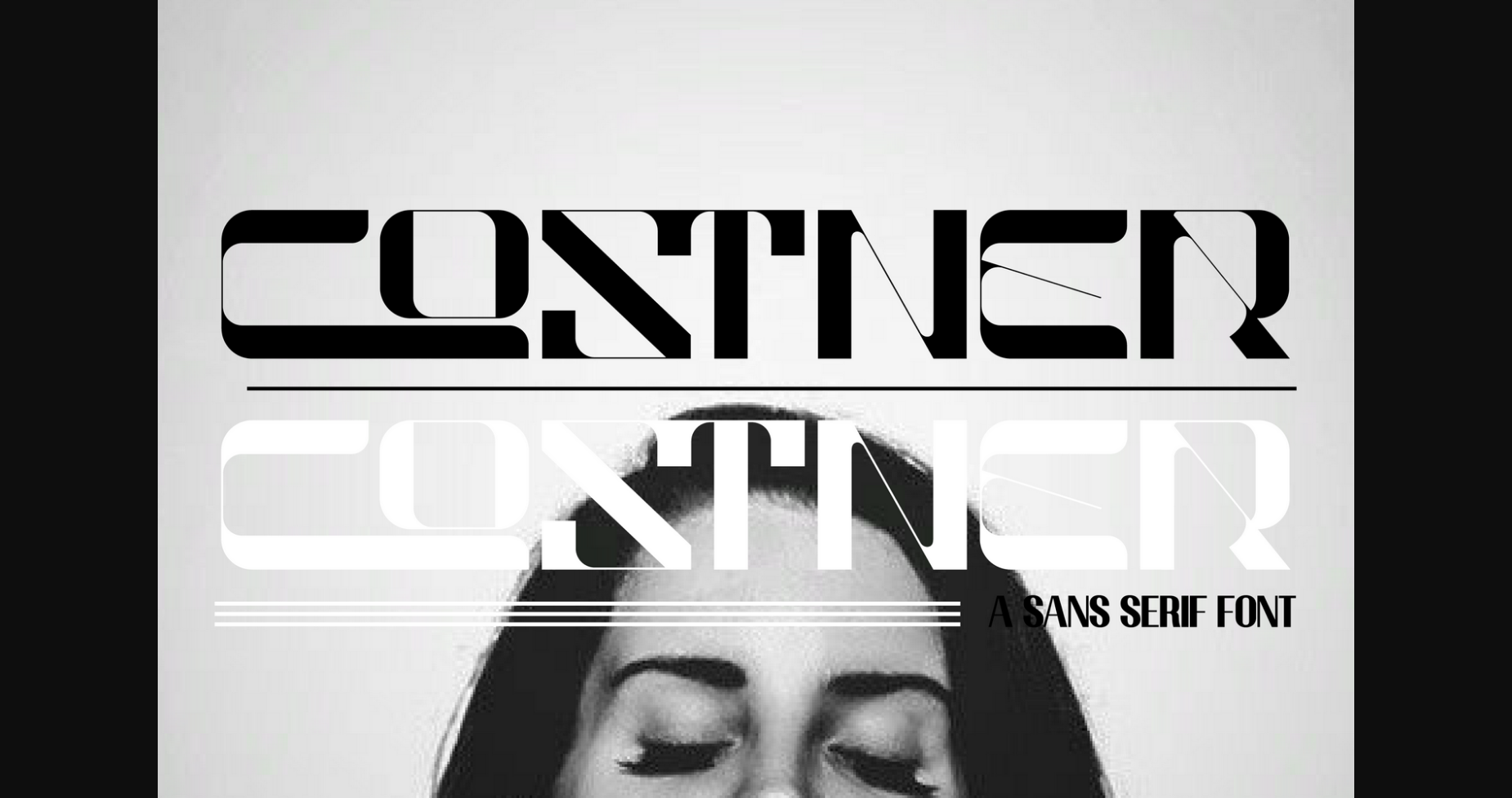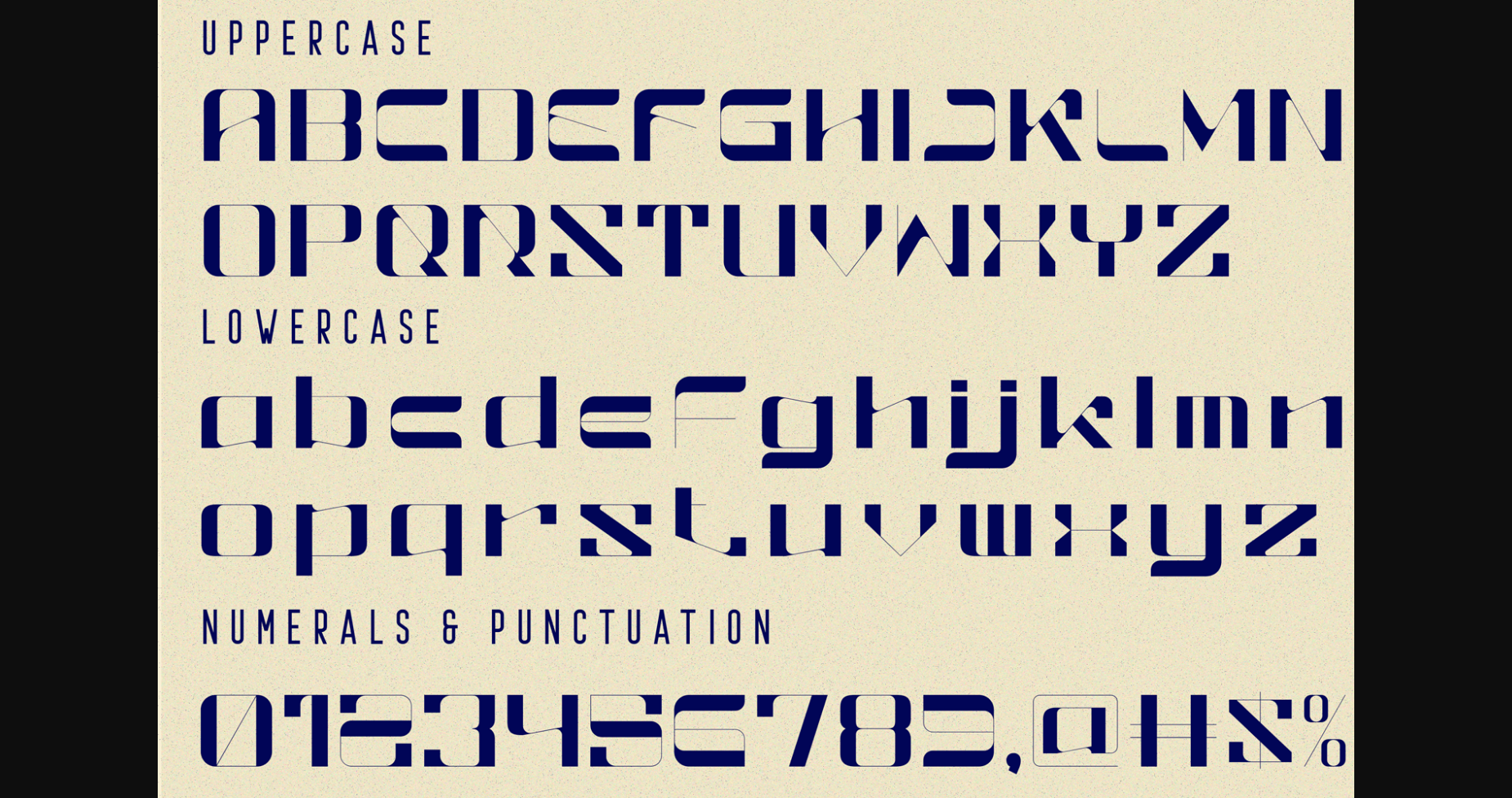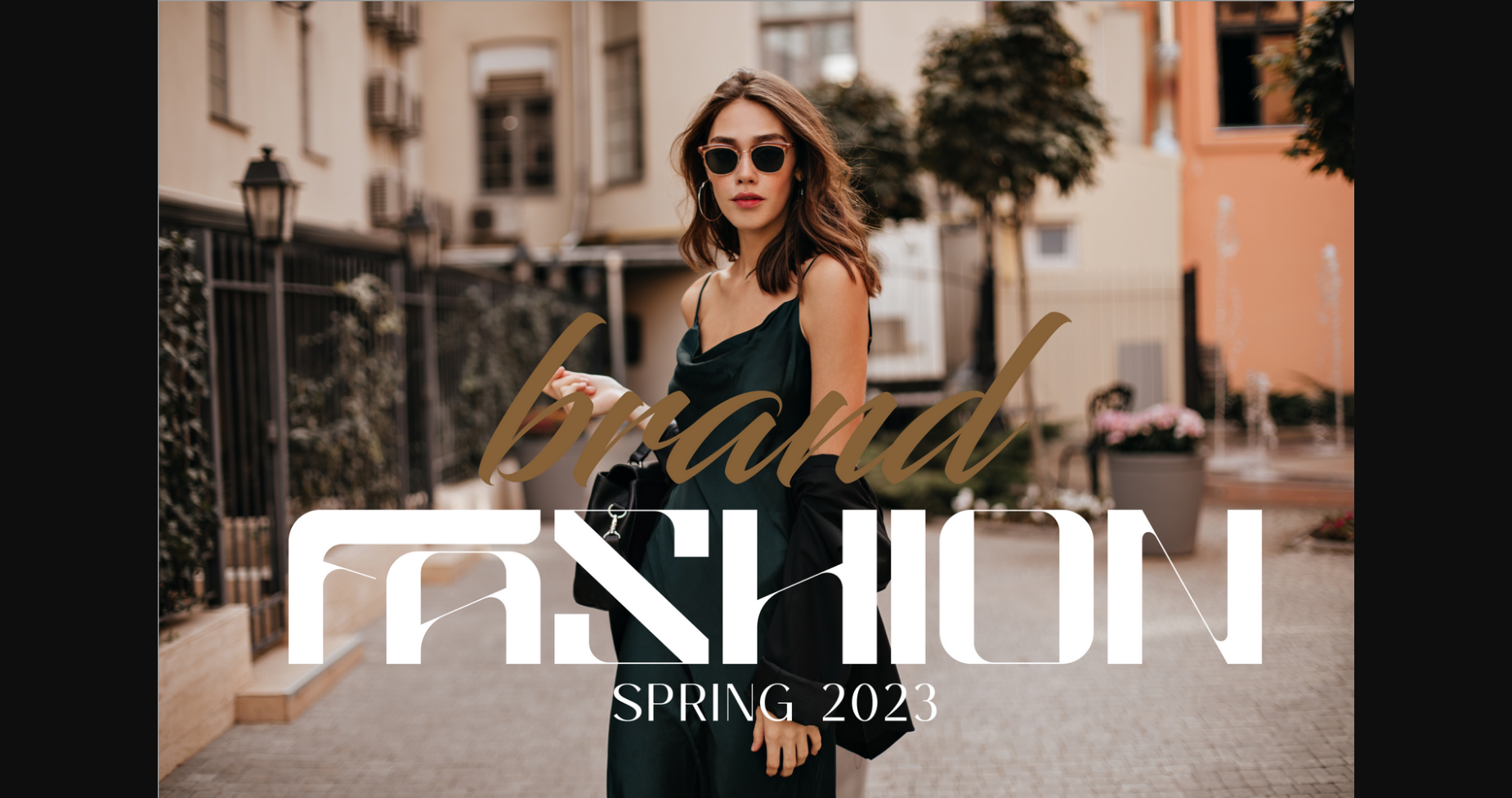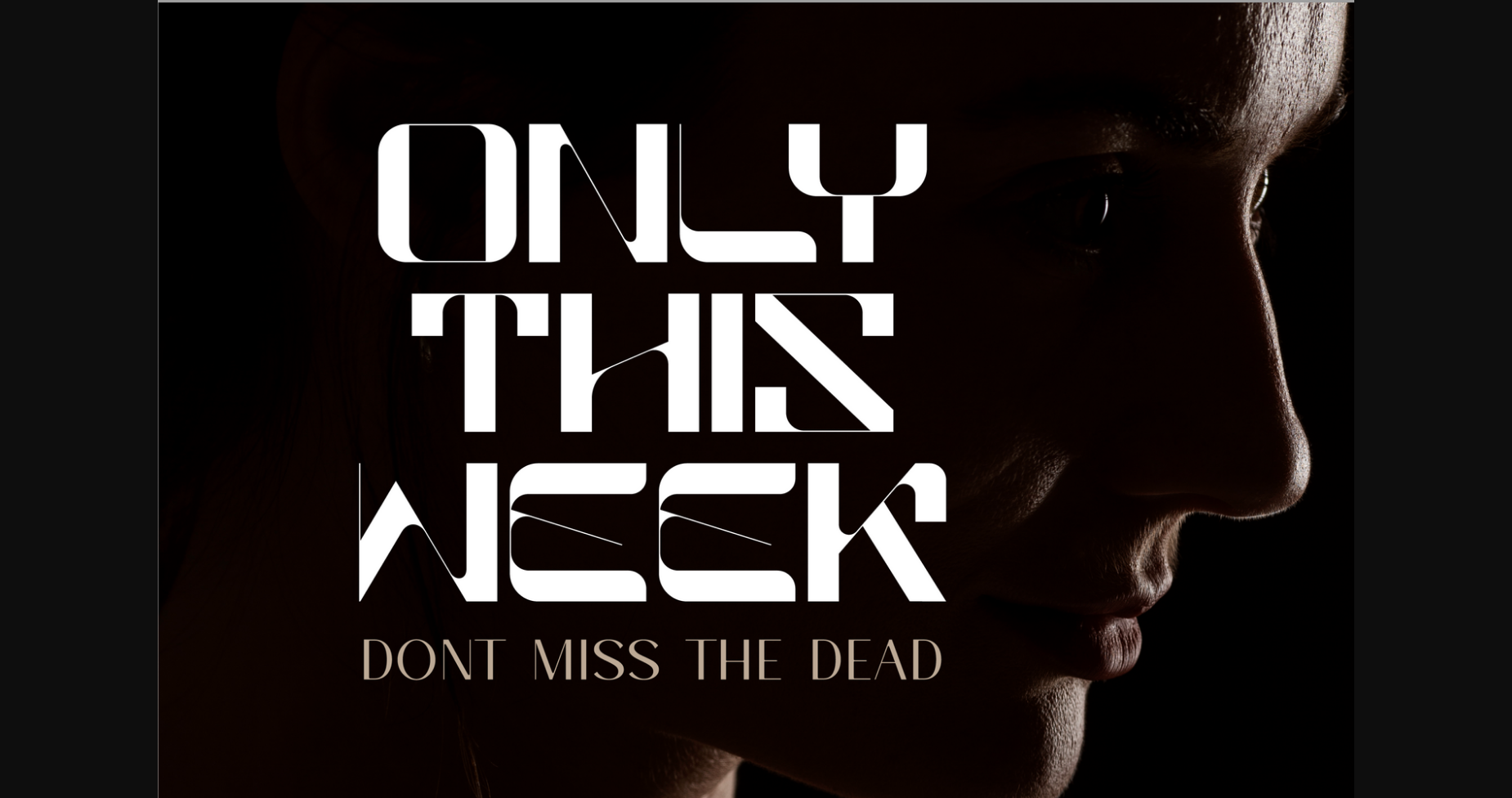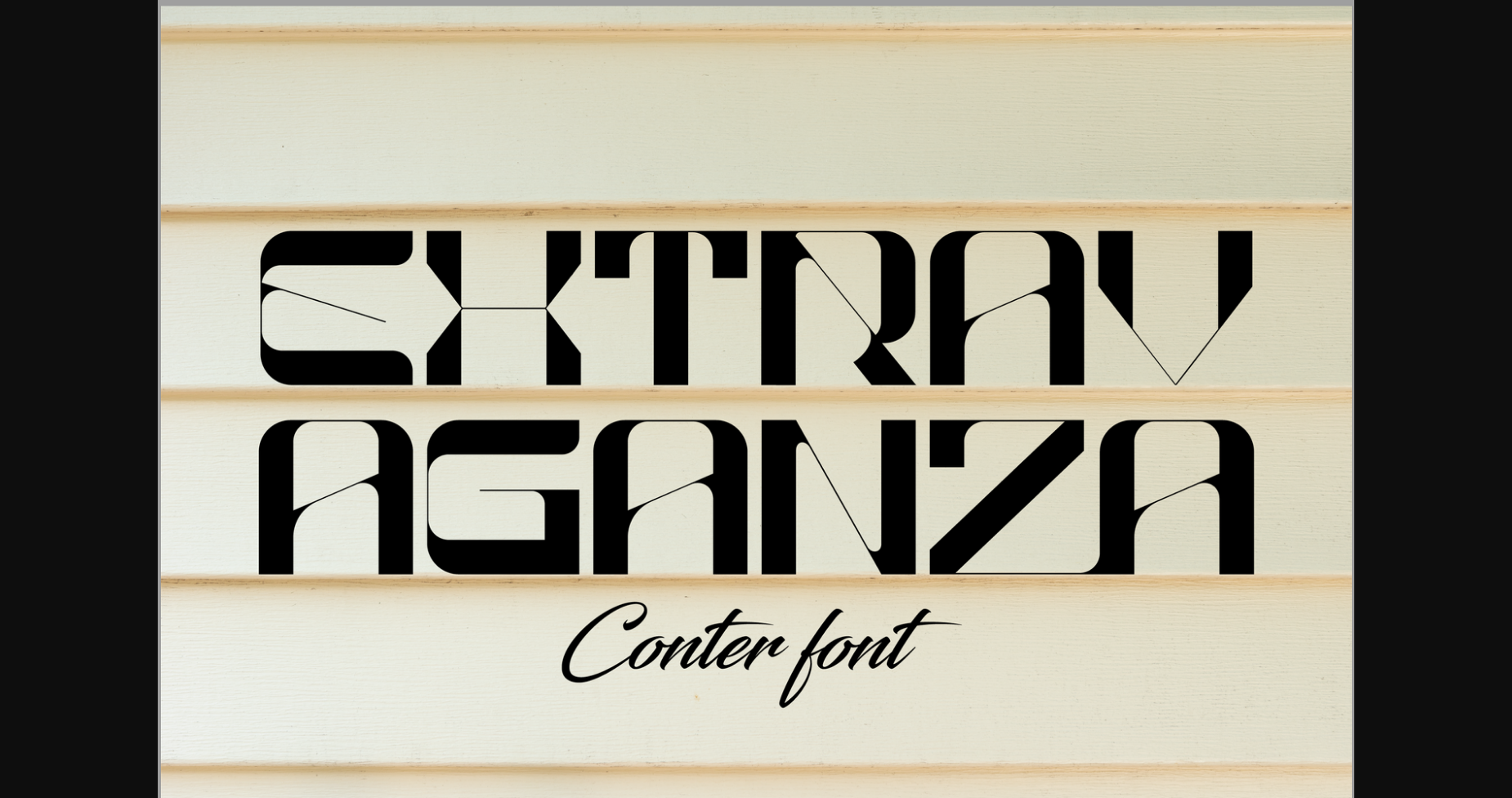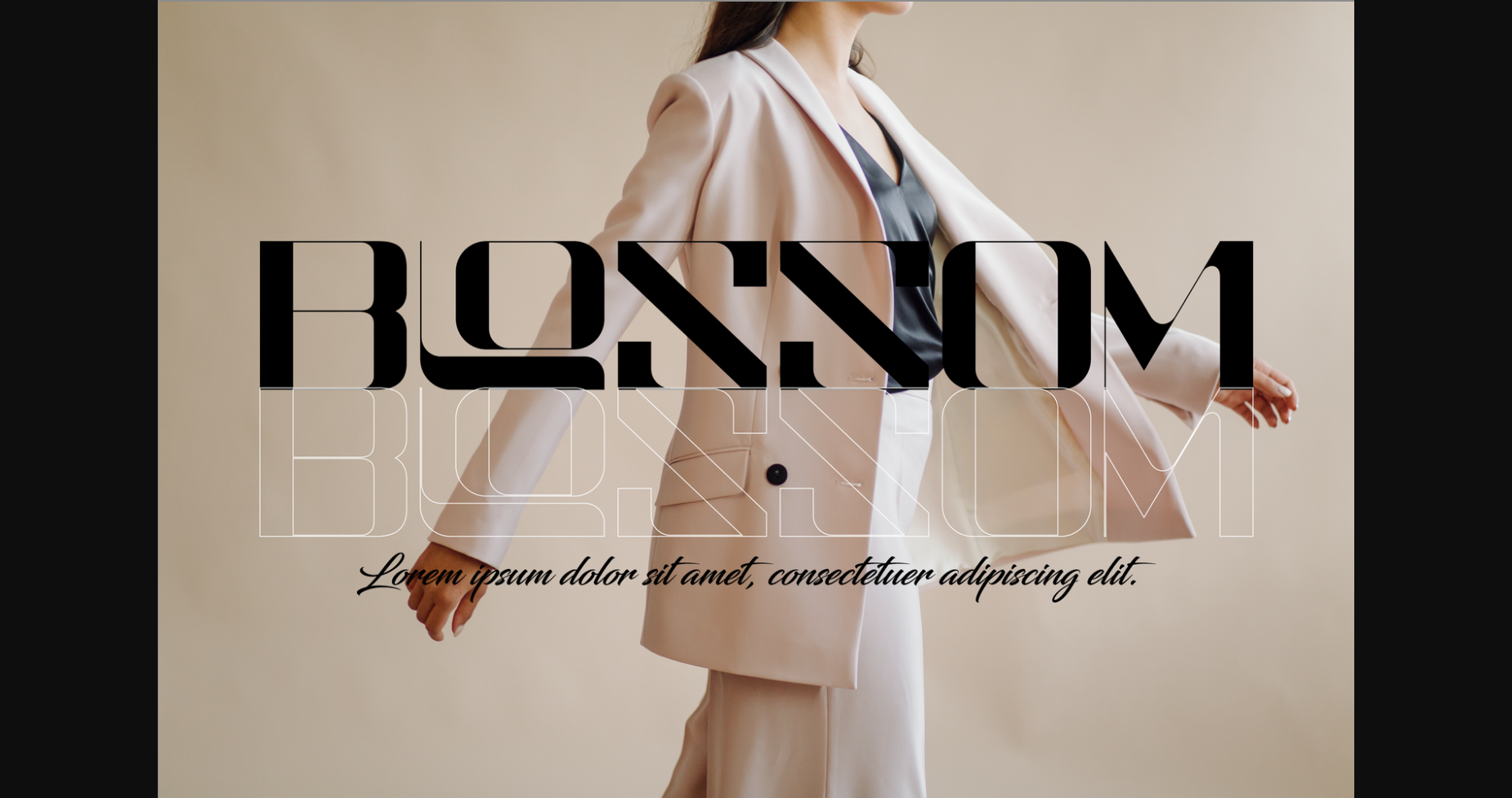
About Costner Font
Costner is a modern and stylish sans-serif font that exudes confidence and sophistication. Its clean lines and minimalistic design make it perfect for a wide range of applications, from branding to editorial design. This font’s contemporary and chic look will elevate your project to a whole new level of style and elegance.